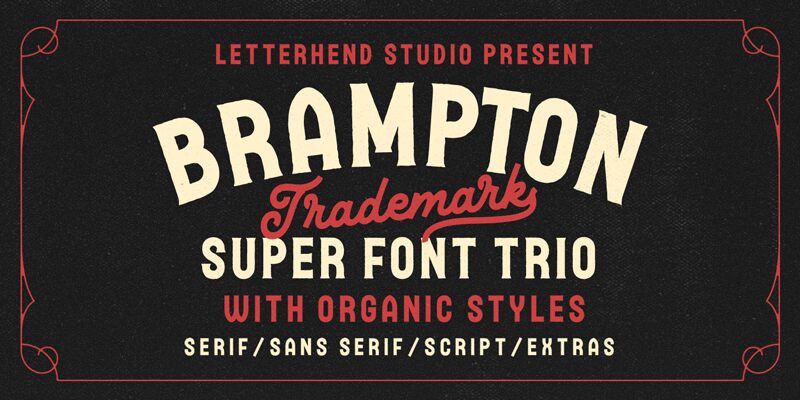
Brampton Serif emerges as a bold statement from the creative minds at Letterhend Studio, blending a classic touch with contemporary flair. As a display font, its robust and retro serif style exudes charm and personality, making it an irresistible choice for designers looking to infuse their projects with an air of nostalgia yet keeping them firmly anchored in modern design sensibilities.
The aesthetic appeal of Brampton Serif lies in its commanding presence; the bold weight ensures that text grabs attention without sacrificing readability. Each letter showcases subtle quirks that give it a unique character—perfect for branding, advertising headlines, and eye-catching packaging.
Moreover, the font's versatility allows it to transition seamlessly across various creative mediums—from print to digital—making it a go-to asset for graphic designers aiming to create memorable work that stands out. Its retro roots offer warmth and familiarity, while its polished finish aligns beautifully with current trends.
In essence, Brampton Serif is not just another font—it's a visual storyteller ready to bring distinction and sophistication to your next creative endeavor.